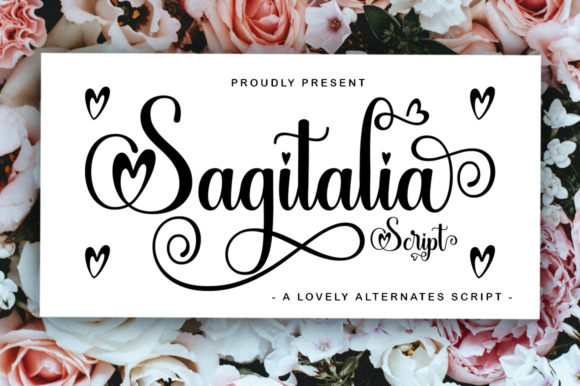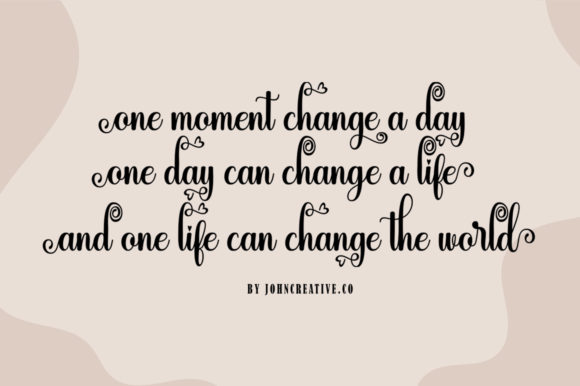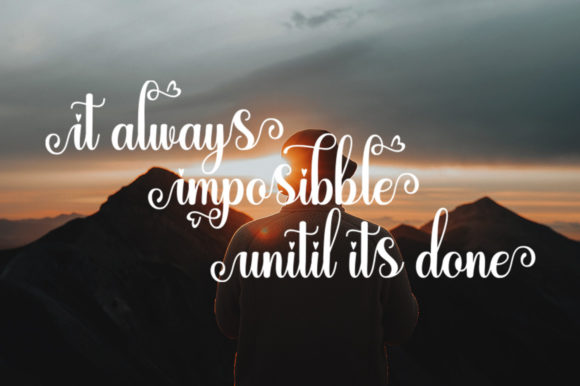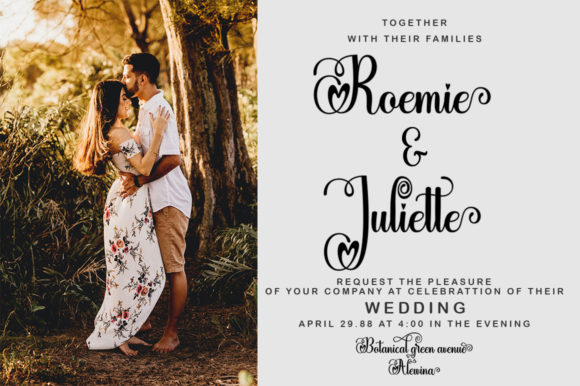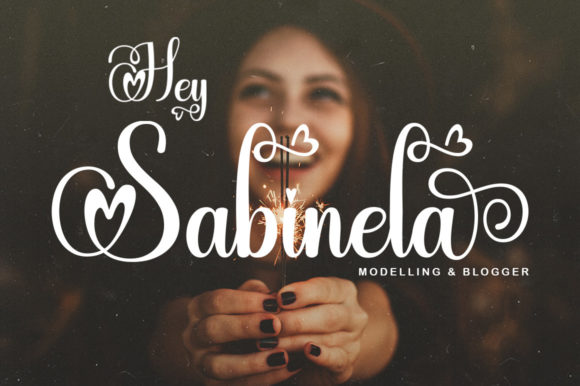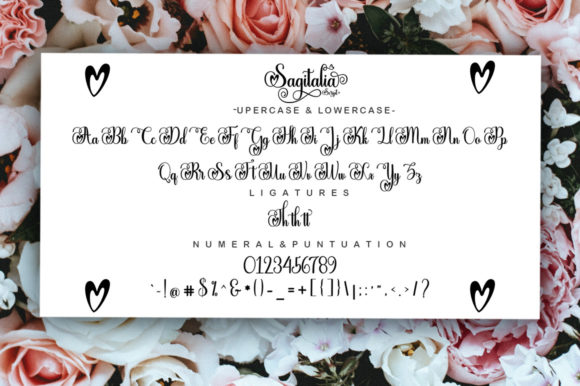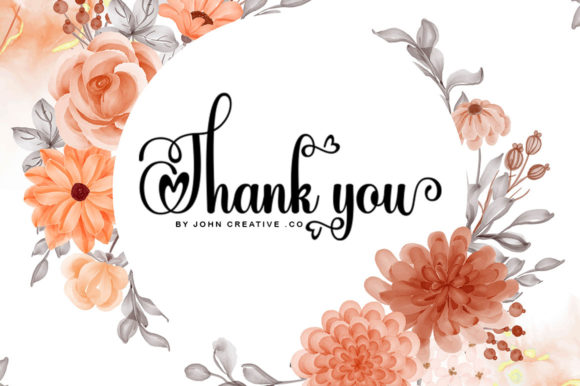
Sagitalia Script Font
Sagitalia Script is a sophisticated handwritten font that’s great for delivering any message with confidence, authenticity, and charm. It will elevate a wide range of crafting ideas, from cards to branding, labels, and much more.